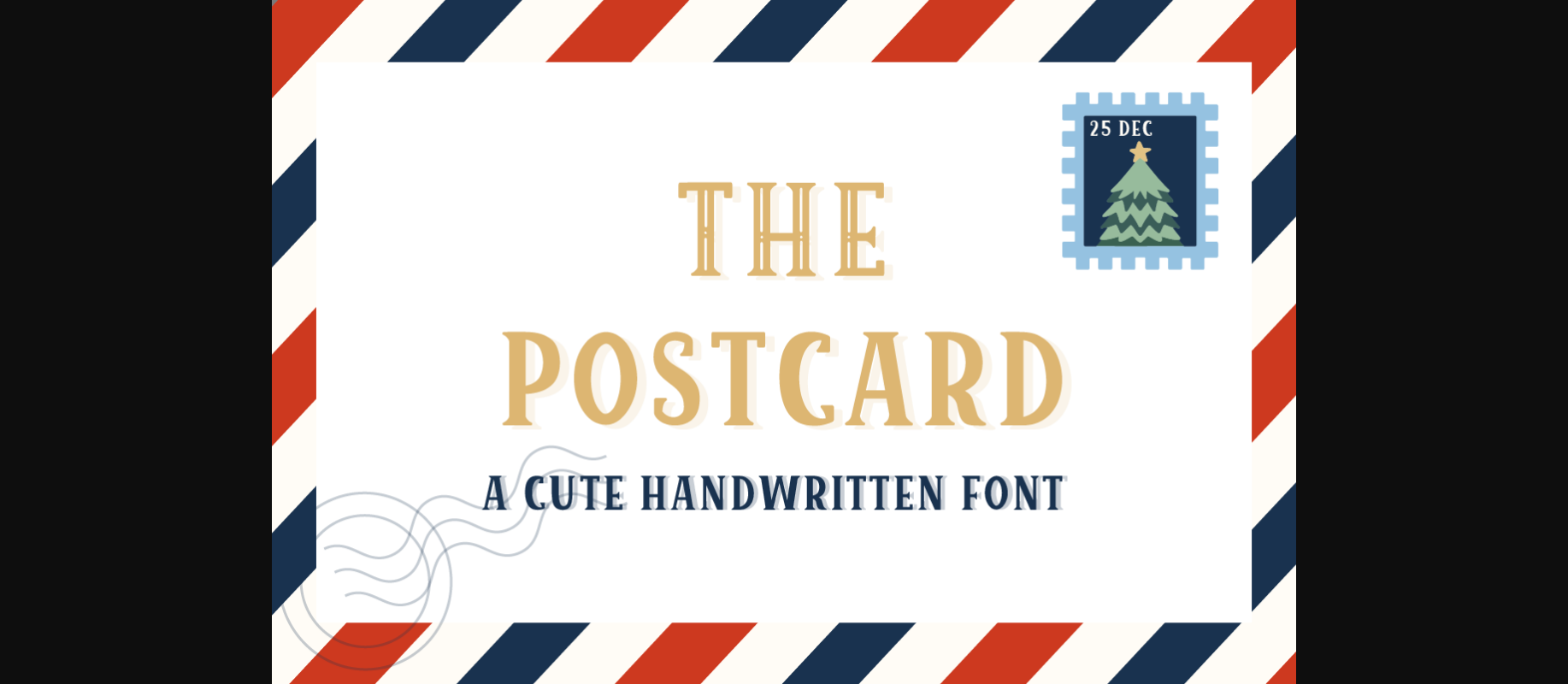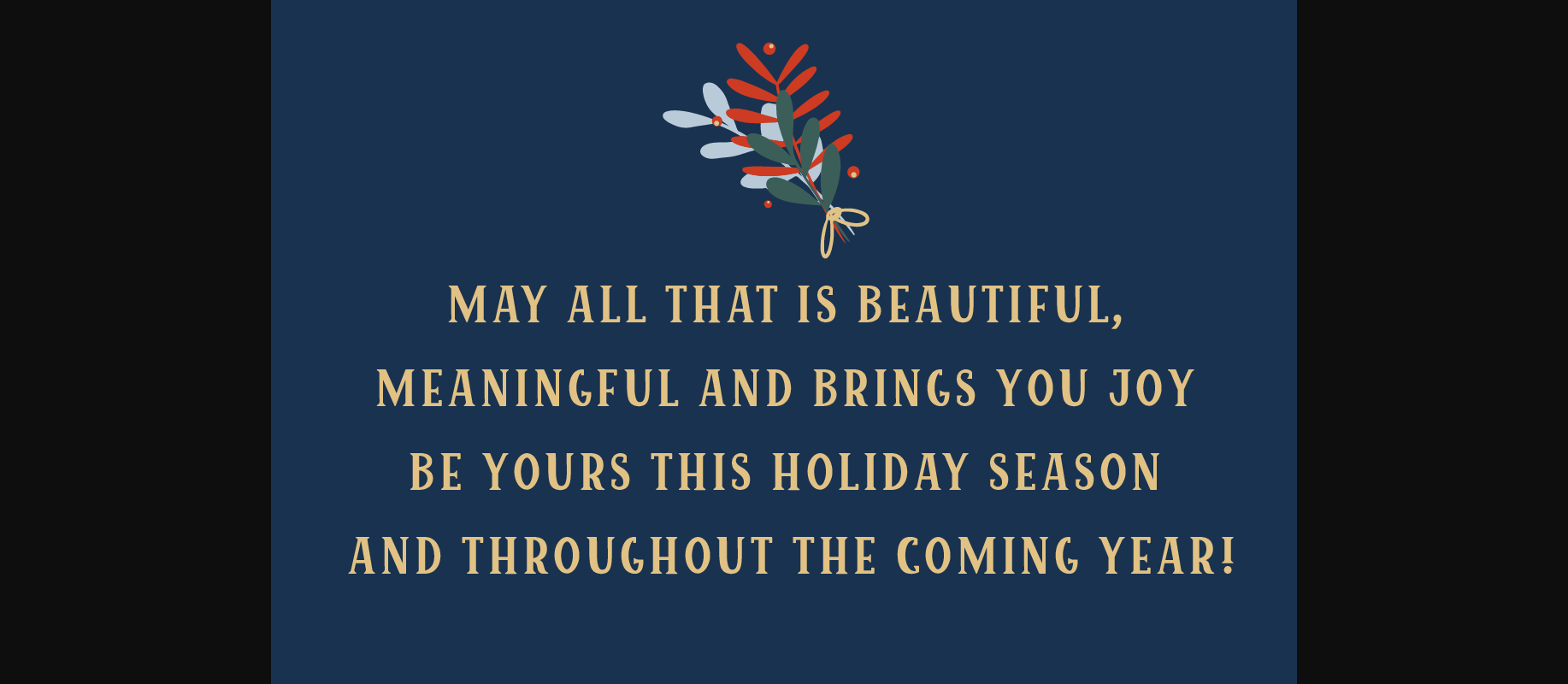
About The Postcard Font
The Postcard is a cute handwritten font. Perfect for circuit projects, shirts, retro designs, Christmas invitations, mugs, stickers, playful quotes, creating posters, logos, greeting cards, packaging, decorating the illustration and so much more!